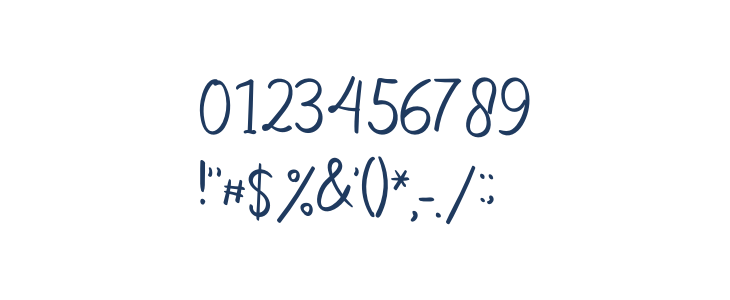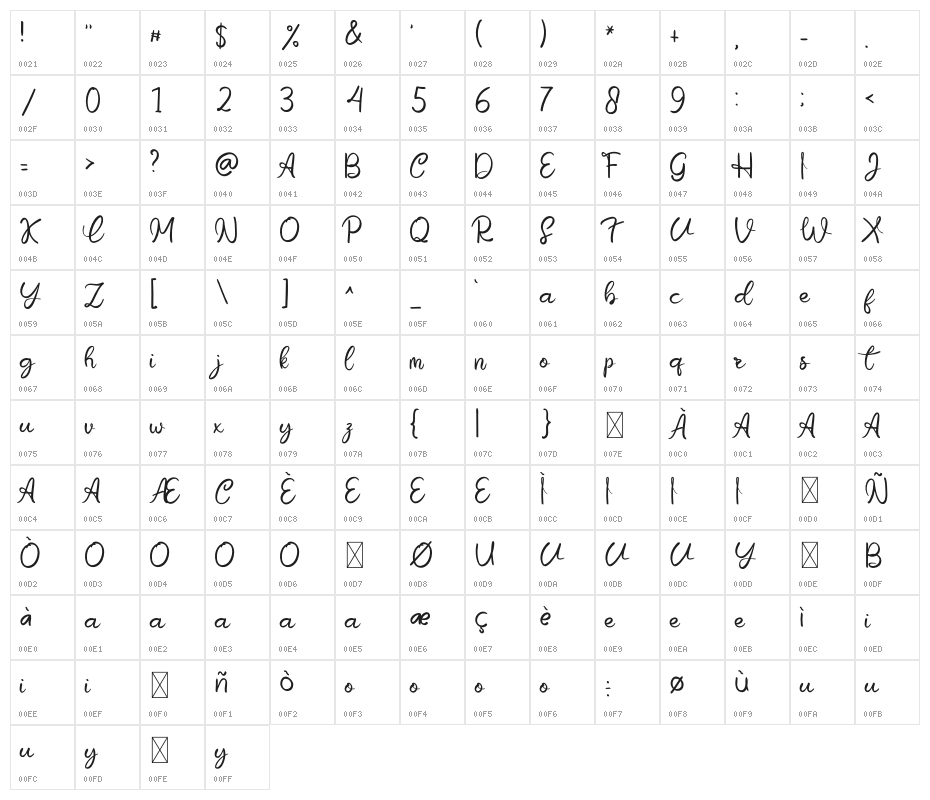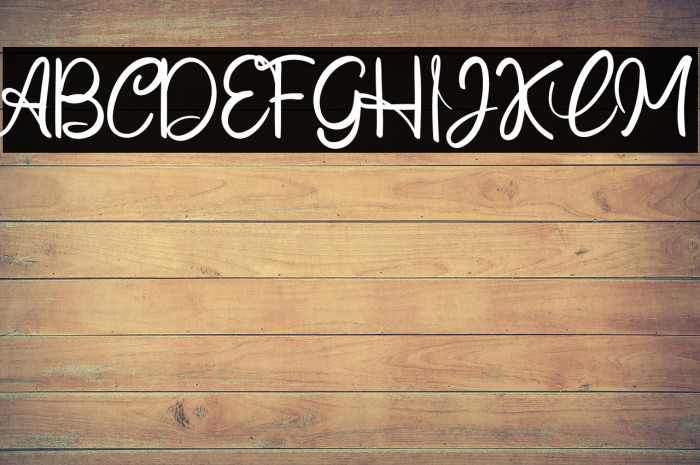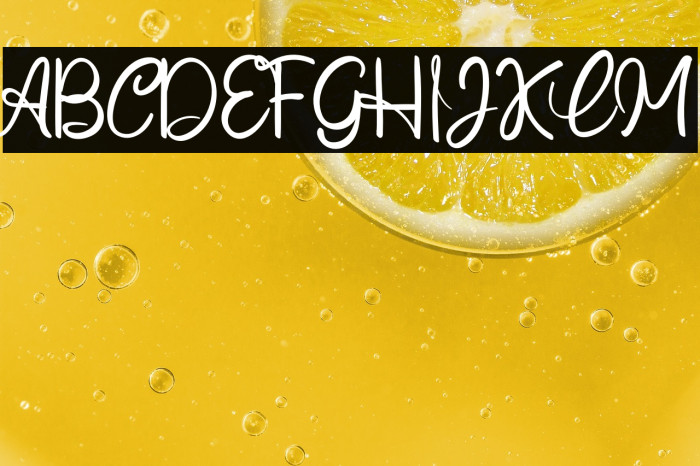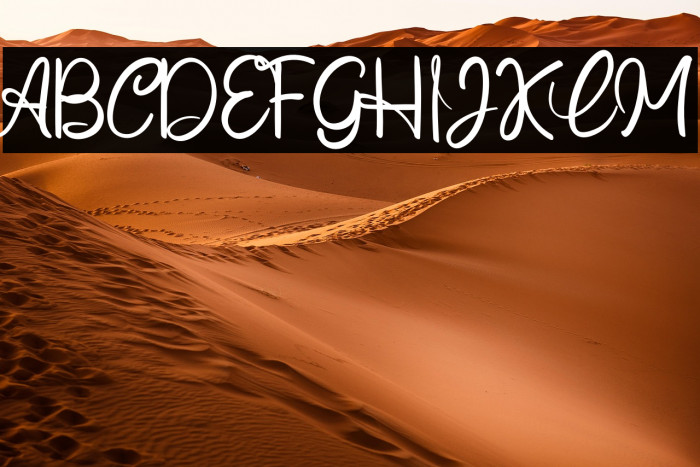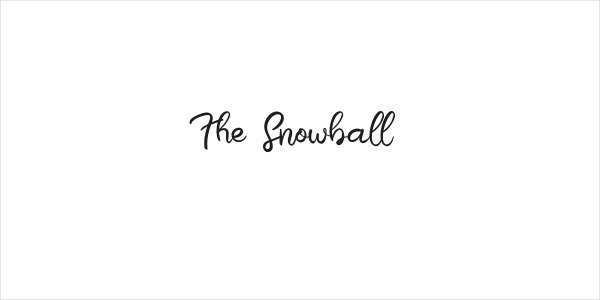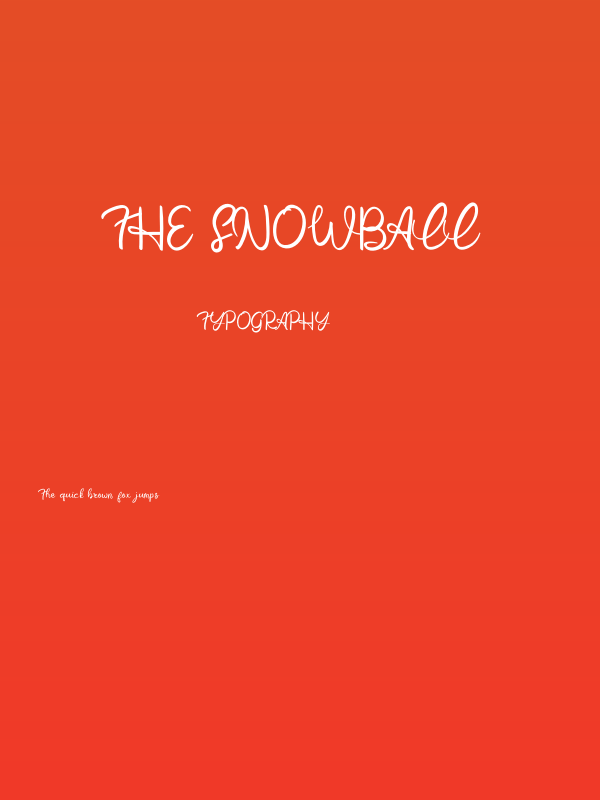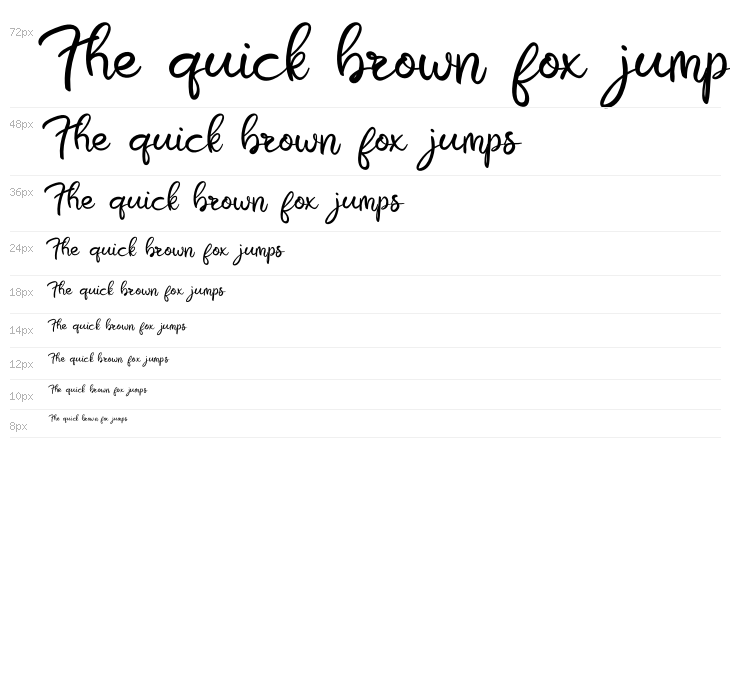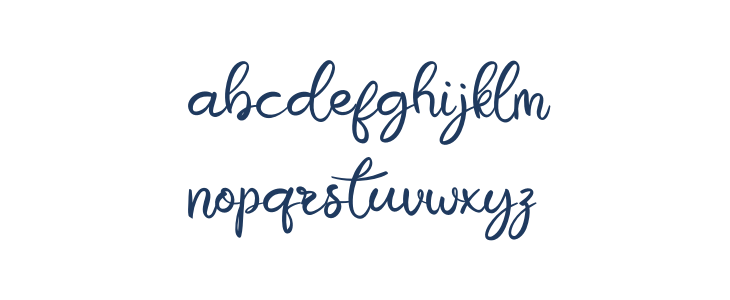
The Snowball Font
The Snowball Description
This font features a playful and whimsical handwritten style, characterized by its flowing and connected letterforms. The uppercase letters exhibit a sense of movement and fluidity, while the lowercase letters maintain a consistent and harmonious rhythm. The numerals are bold and clear, ensuring readability. Special characters are integrated seamlessly, adding to the font's versatility. The overall appearance is casual yet elegant, making it suitable for a variety of creative projects.
| Proposed Projects | Ideal for greeting cards, invitations, personal branding, and creative projects that require a personal touch. |